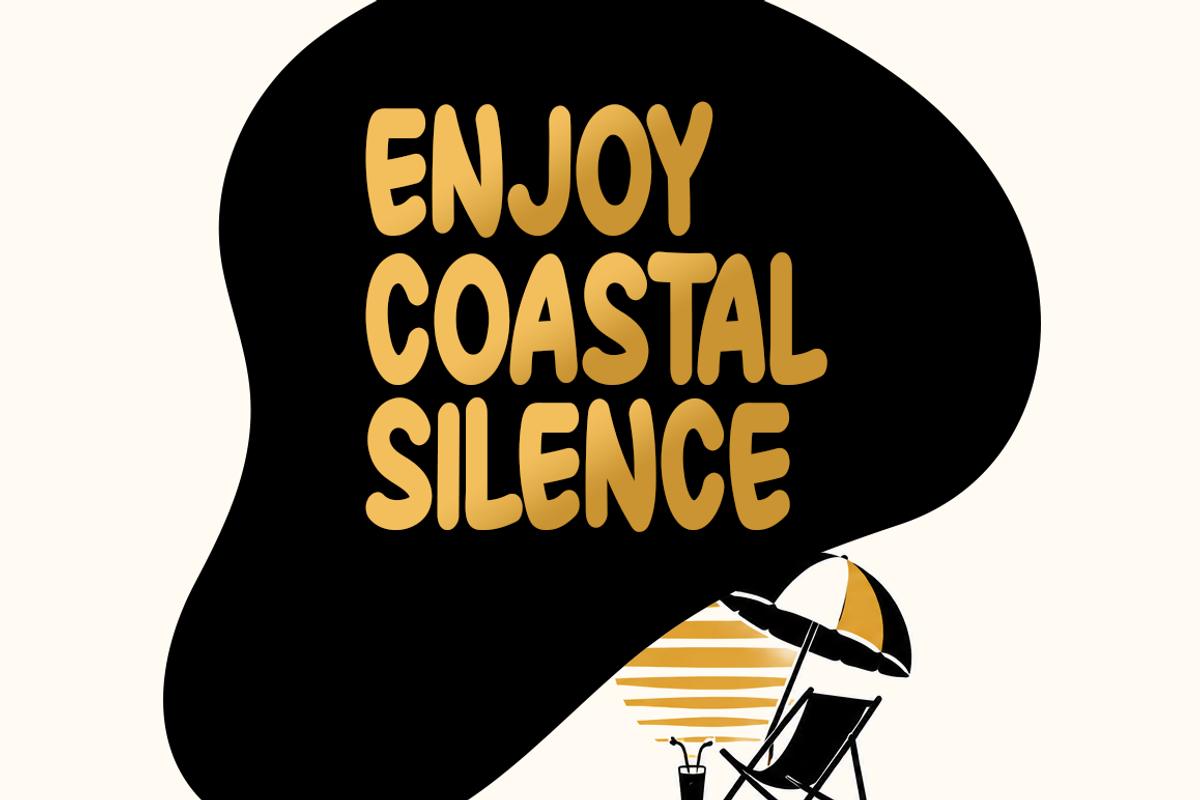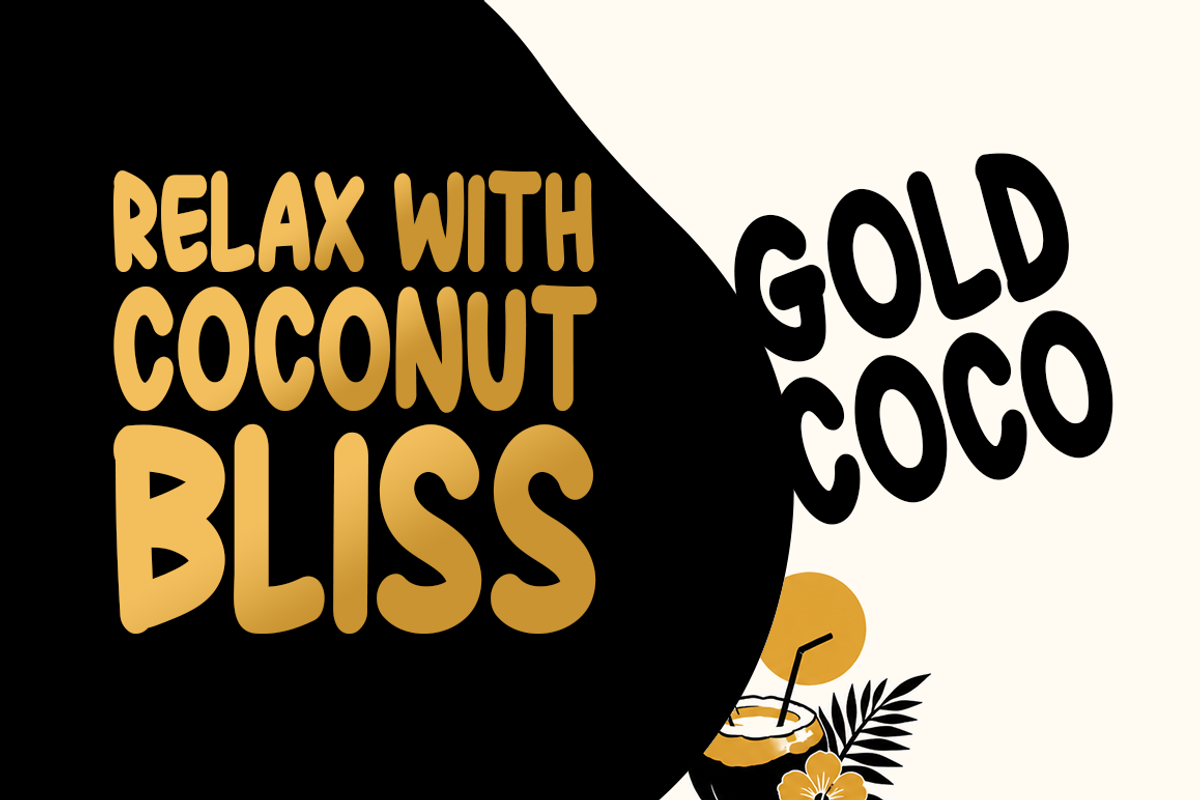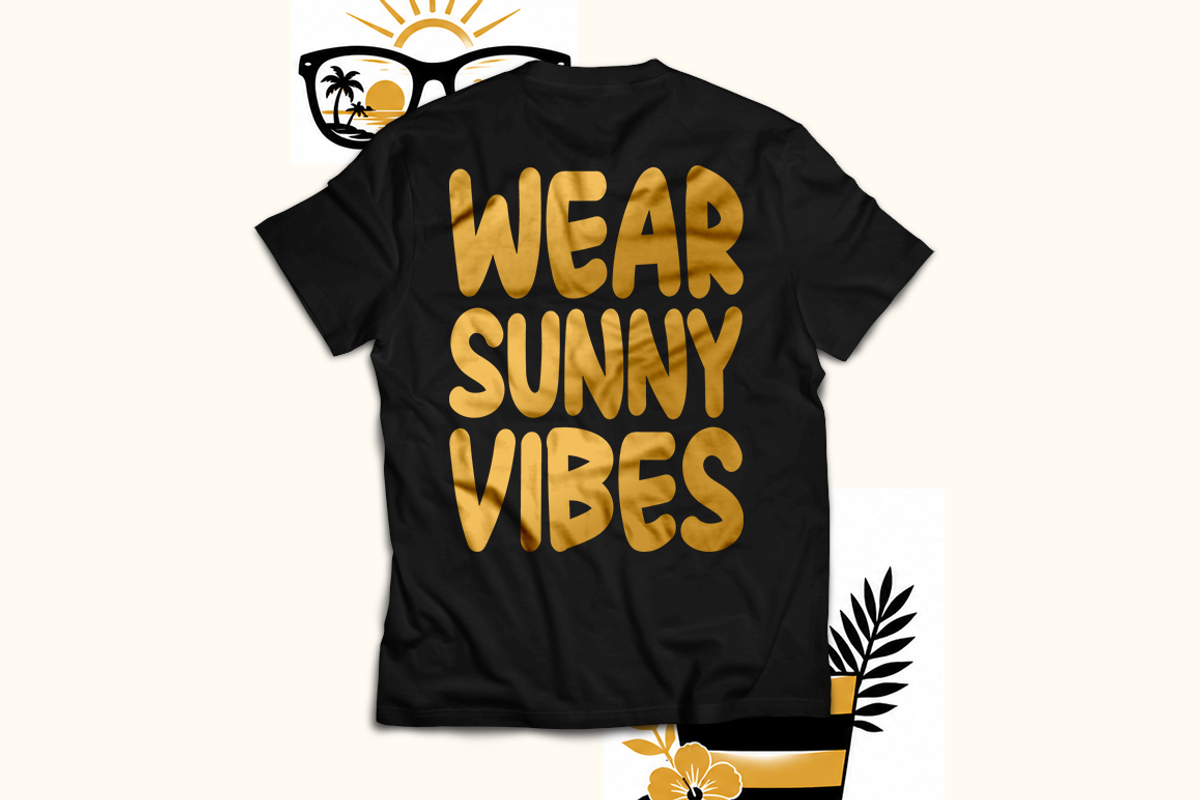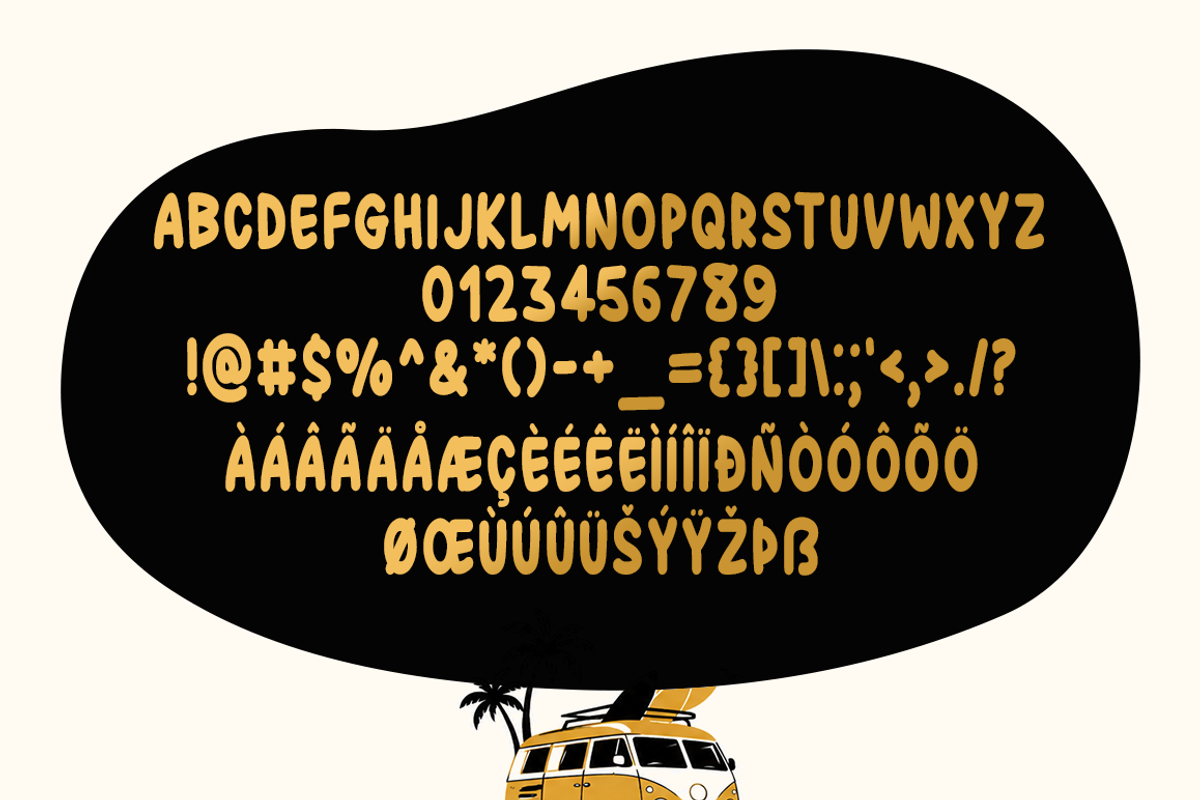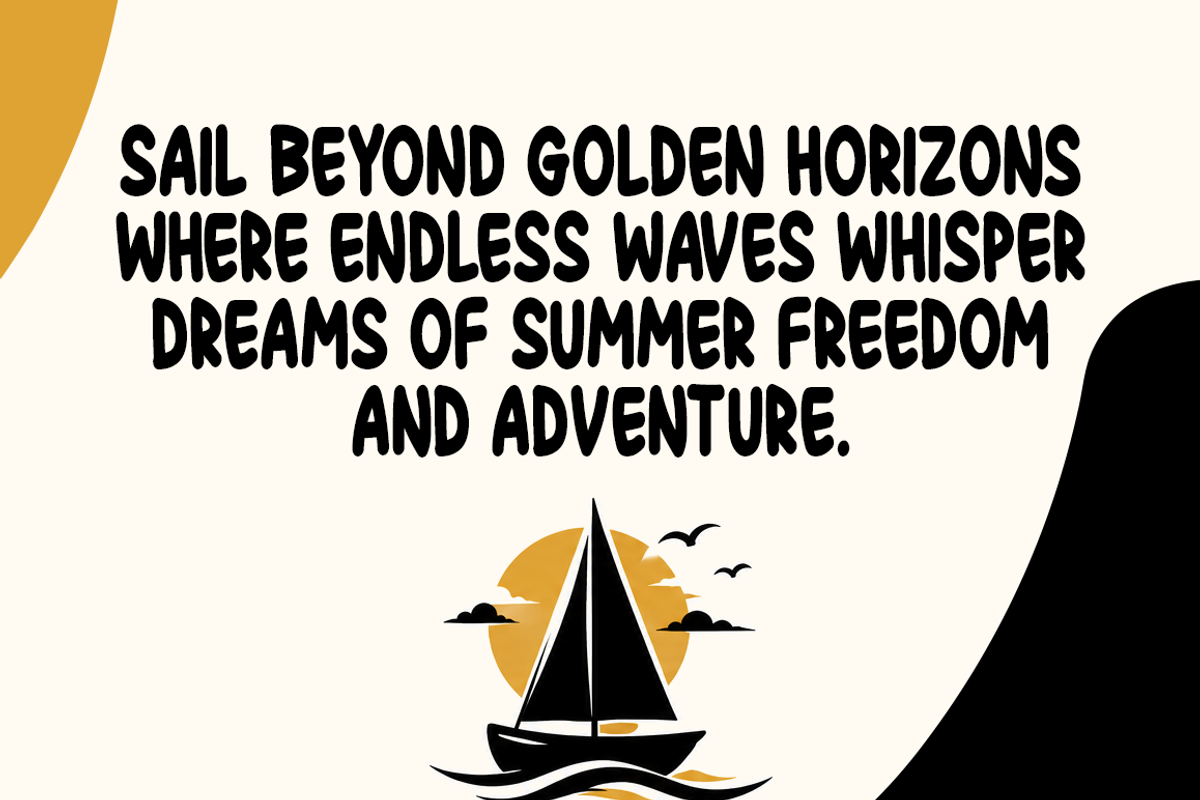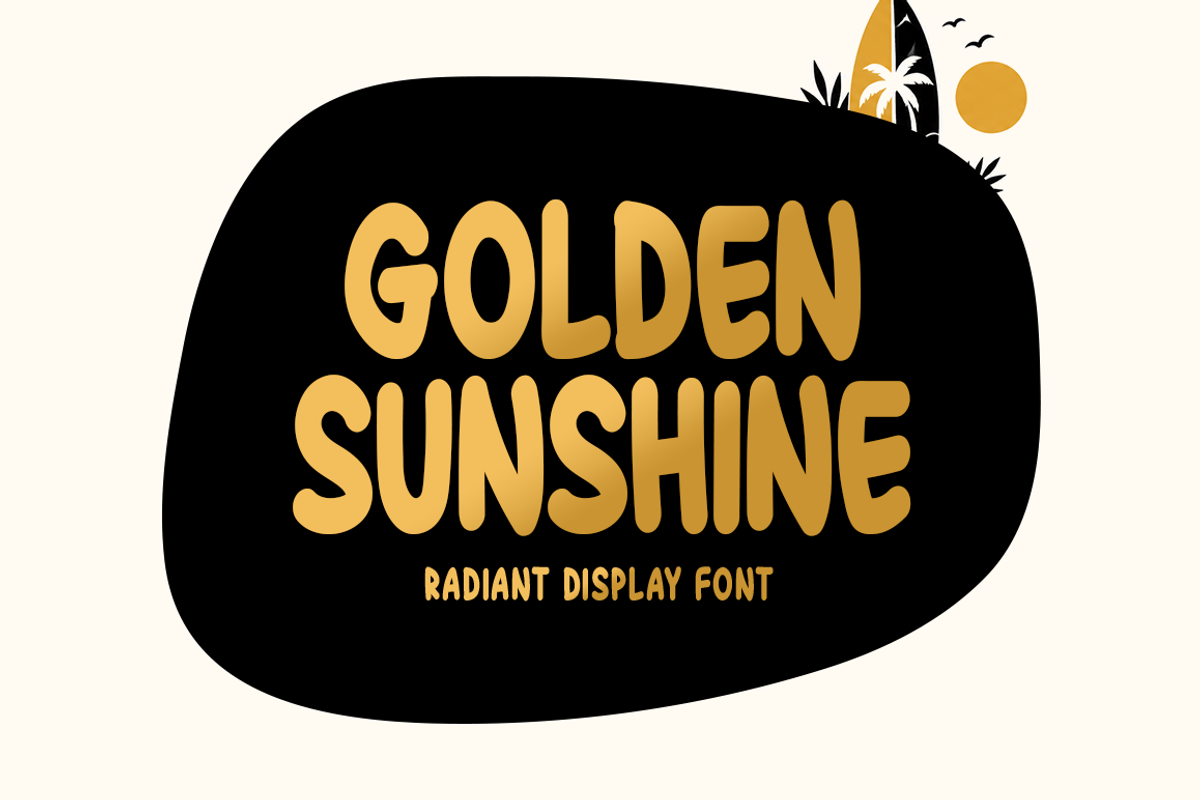
Golden Sunshine
Introducing Golden Sunshine!
Golden Sunshine is a bold display font inspired by bright summer days, tropical adventures, and cheerful energy. Its thick, rounded letterforms create a playful and eye-catching appearance that stands out in posters, branding, packaging, logos, and social media graphics. The lively character of this typeface brings warmth and excitement to creative designs.
Includes a range of multilingual support